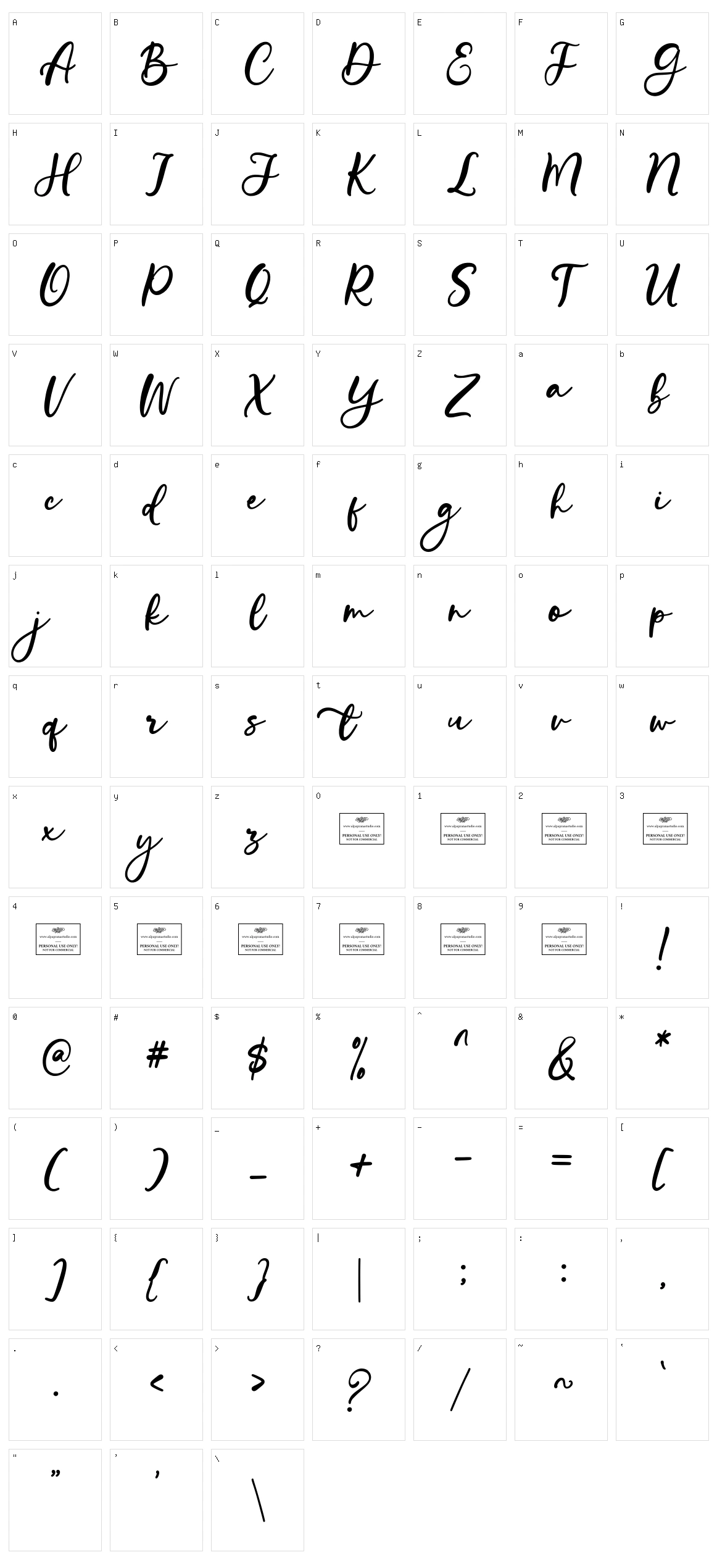
Verified Script - Rough Script Font
Verified Script is a rough script font with natural and clasic feels. It will be perfectly used for Branding, Logo Design, Lettering, Logotype, Clothing, Poster, magazine, packaging, posters, shopping bags, t-shirts, book covers, photography, special events and other design project.